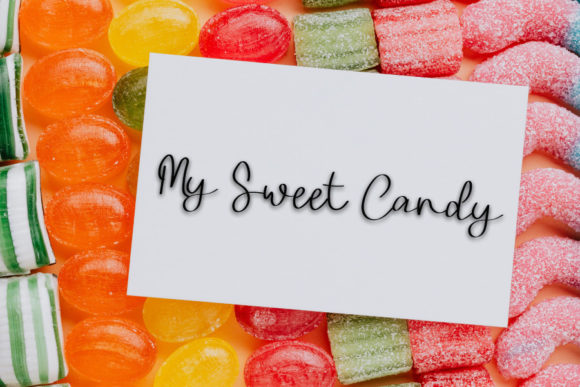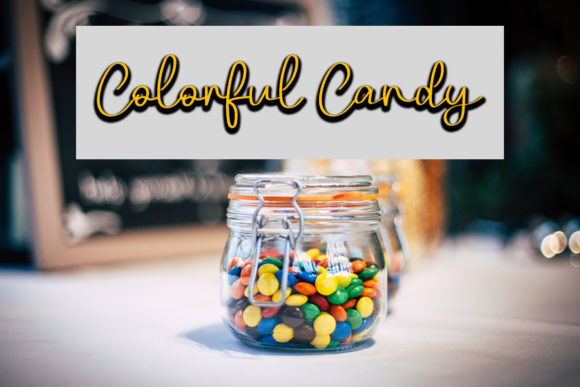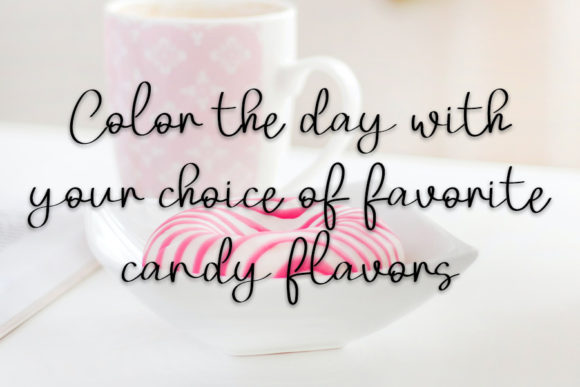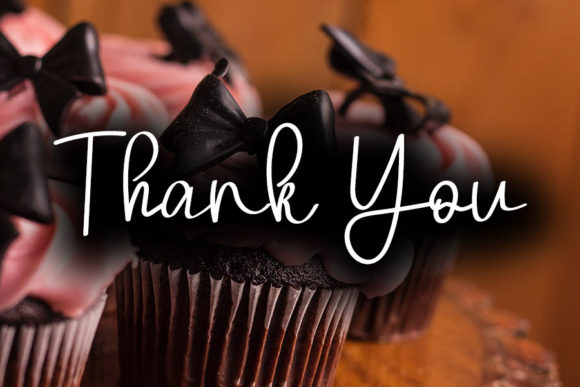
Candy Queen Font: The Sweetest Addition to Your Design Collection
Are you a designer or crafter looking for a font that embodies elegance and class? Look no further than the Candy Queen Font! This lovely and delicate script font is the perfect addition to your design collection, providing a beautiful and refreshing look to your projects.
What is Candy Queen Font?
Candy Queen is a carefully crafted script font that exudes sophistication and refinement. Its delicate lines and curves make it perfect for a variety of design applications, from wedding invitations and party decorations to branding and advertising materials.
Key Features of Candy Queen Font
- Delicate and Elegant Design: Candy Queen Font features a beautiful, cursive script design that adds a touch of elegance to any project.
- Highly Readable: Despite its delicate nature, Candy Queen Font is highly readable, making it perfect for use in both digital and print materials.
- Versatile: This font can be used in a variety of design applications, from formal events and branding to packaging and advertising.
Who Can Benefit from Using Candy Queen Font?
Candy Queen Font is perfect for a variety of designers and crafters, including:
- Wedding and Event Planners: Add a touch of elegance to your wedding invitations, party decorations, and other event materials.
- Graphic Designers: Use Candy Queen Font to add a touch of sophistication to your branding, advertising, and packaging designs.
- Crafters: Perfect for crafters who create handmade cards, gift tags, and other paper crafts.
- Small Business Owners: Use Candy Queen Font to create beautiful and professional-looking marketing materials, such as brochures and flyers.
Tips for Using Candy Queen Font
Here are a few tips for getting the most out of Candy Queen Font:
- Pair with Bold Fonts: Pair Candy Queen Font with bold, sans-serif fonts for a striking contrast.
- Use in Headlines and Titles: Use Candy Queen Font in headlines and titles to add a touch of elegance to your designs.
In conclusion, Candy Queen Font is a beautiful and elegant script font that is perfect for designers and crafters looking to add a touch of sophistication to their projects. With its delicate design, high readability, and versatility, Candy Queen Font is sure to become a favorite in your design collection.